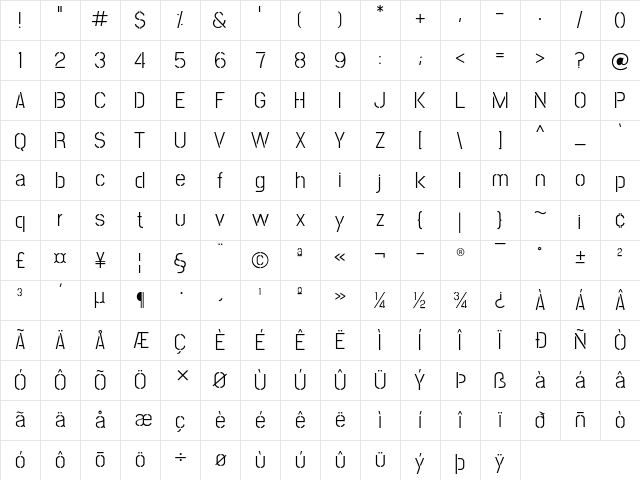
Post No Bills Jaffna Regular Free Font
Post No Bills Jaffna Regular
Foundry: Mooniak
Designer: Kosala Senevirathne, Siva Puranthara, Lasantha Premarathna, Tharique Azeez
Design Context for Post No Bills Jaffna
Post No Bills Jaffna is a composed and adaptable typeface that performs quietly and consistently across a wide range of design contexts.